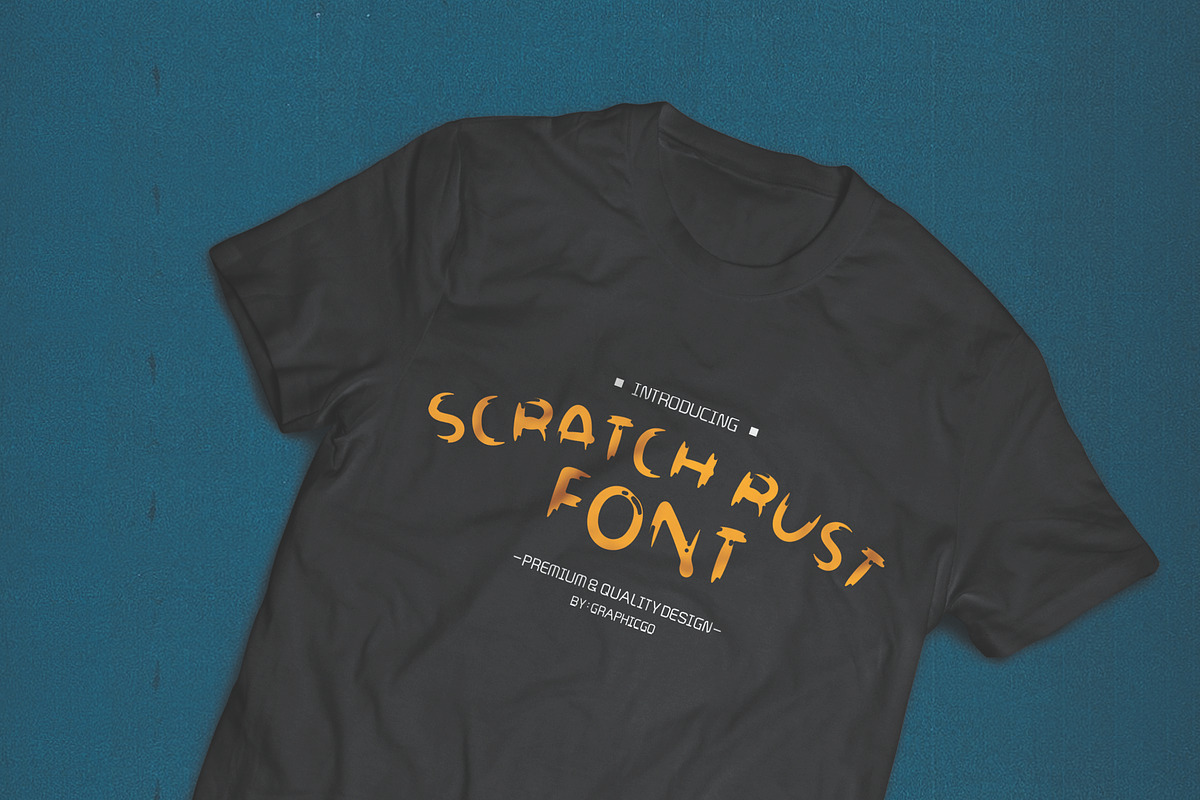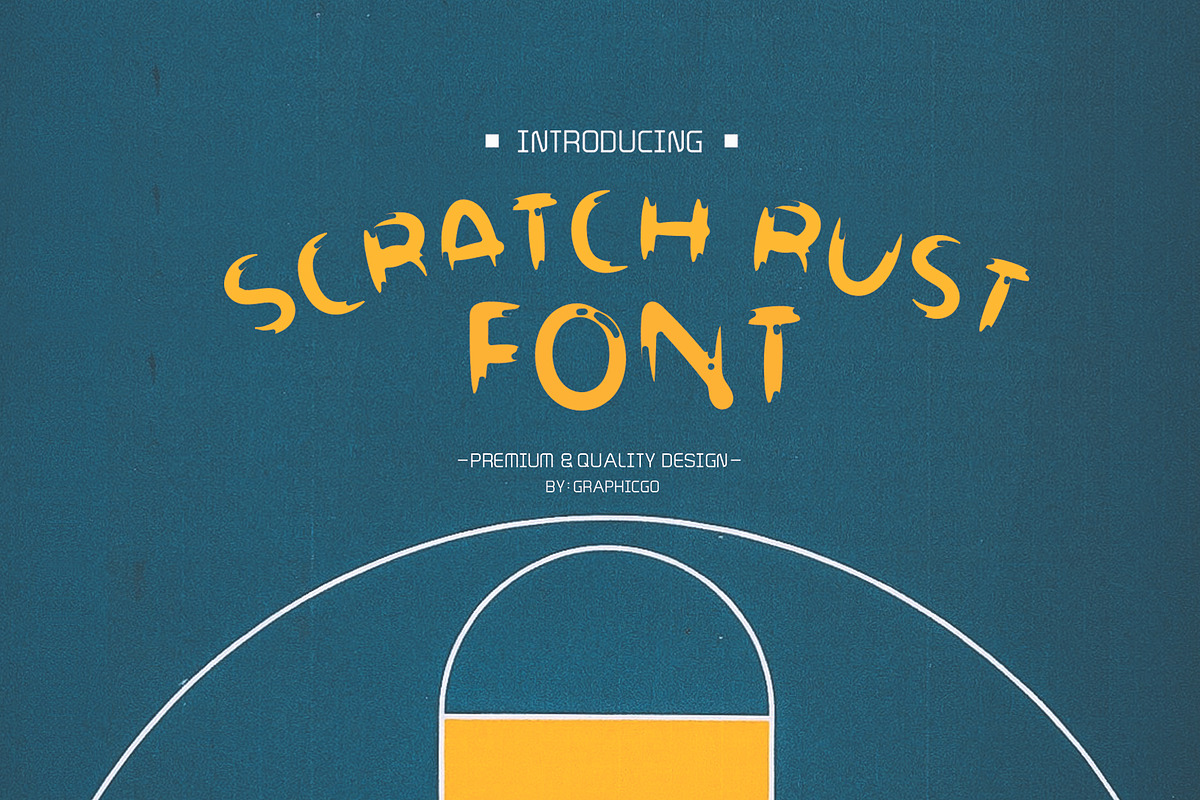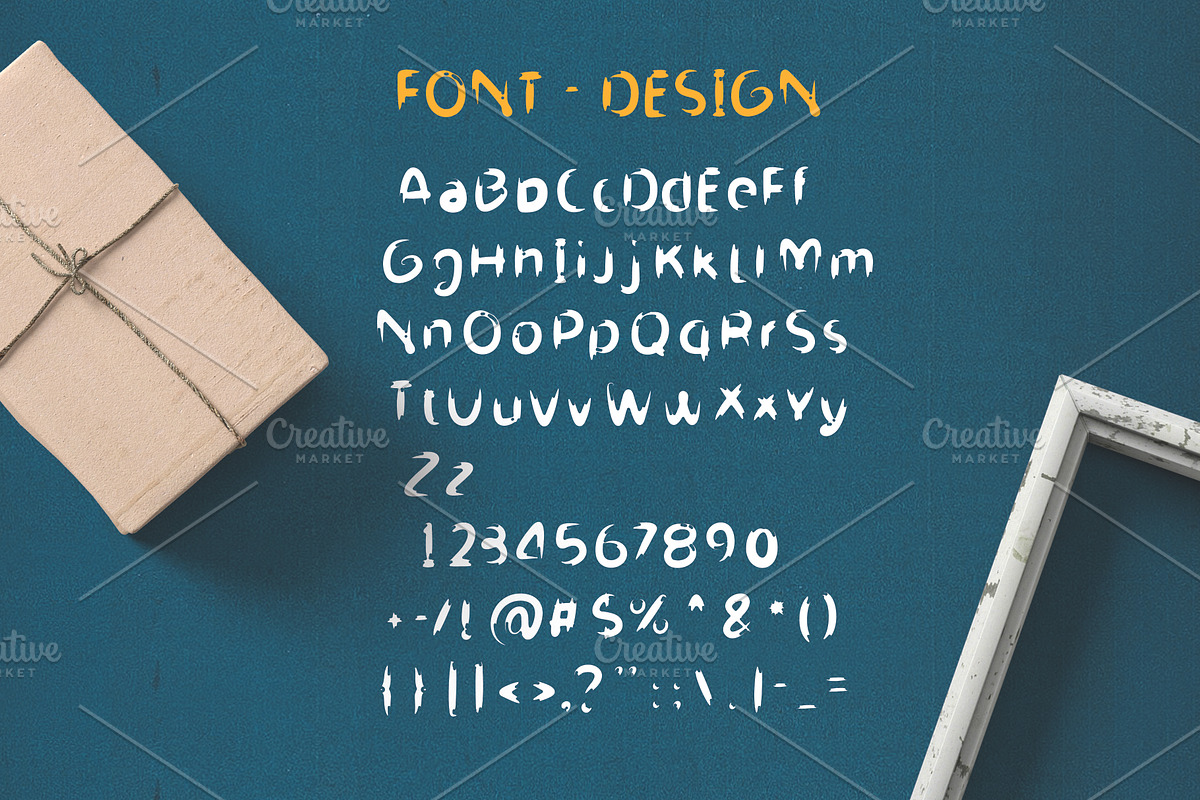
Scratch Rust Font
Scratch Rust Font is bold brush writing style. It 's perfect for organic products, cards, posters, wall art, branding, diy projects, greeting cards, labels, quotes, packaging, websites and much more.
Uppercase and Lowercase
Why Scratch Rust Font is worth a look
Scratch Rust Font by Graphicgo fits naturally into Branding, posters, packaging, typography.